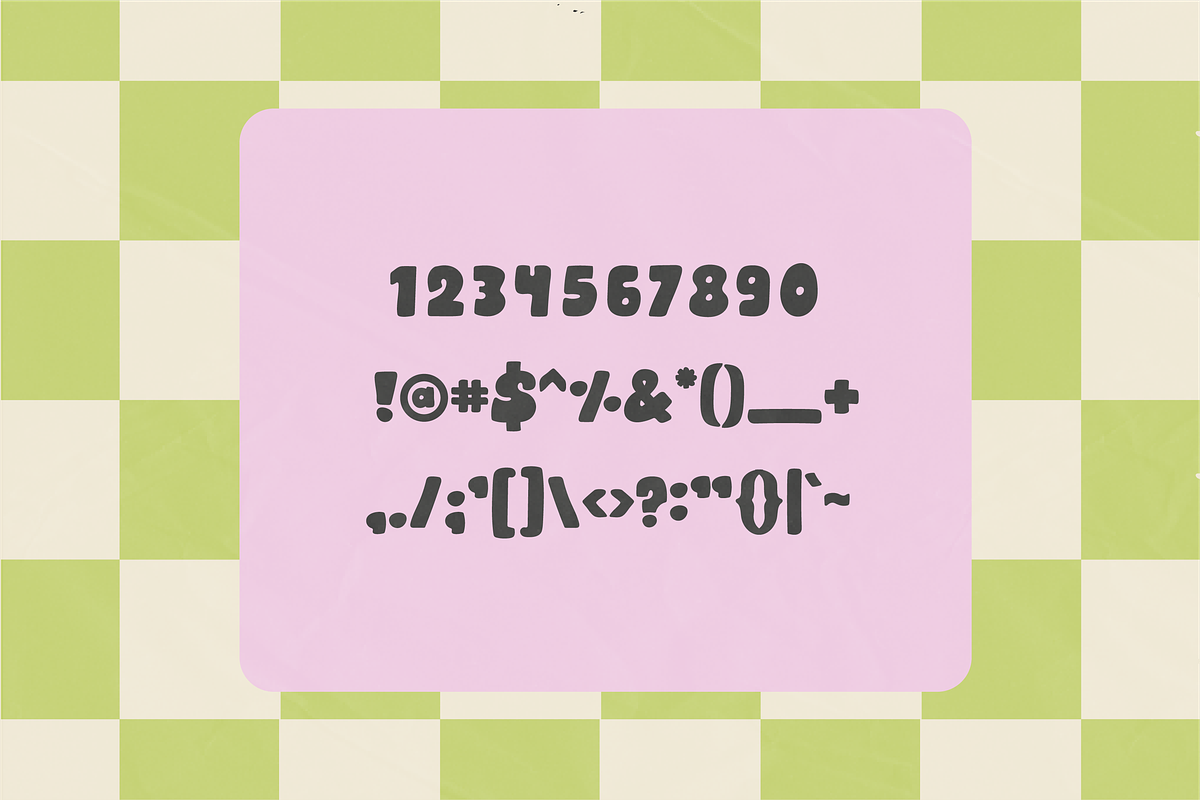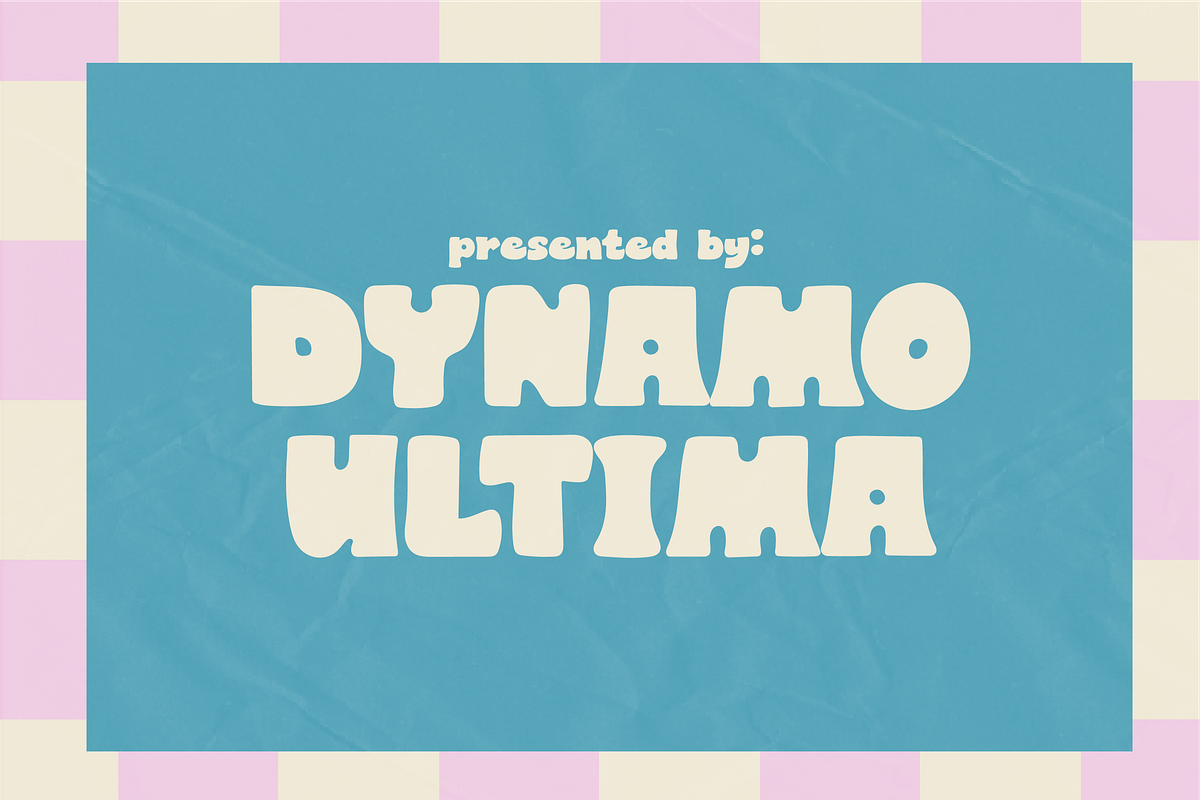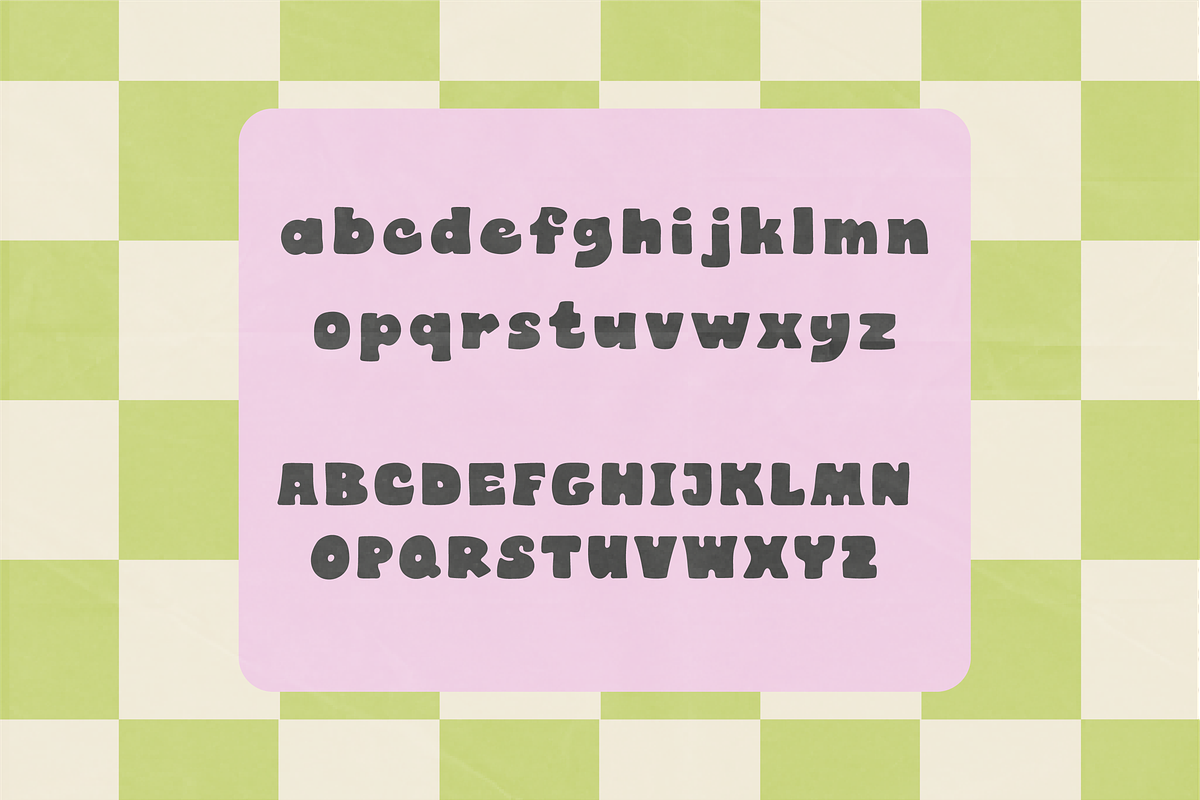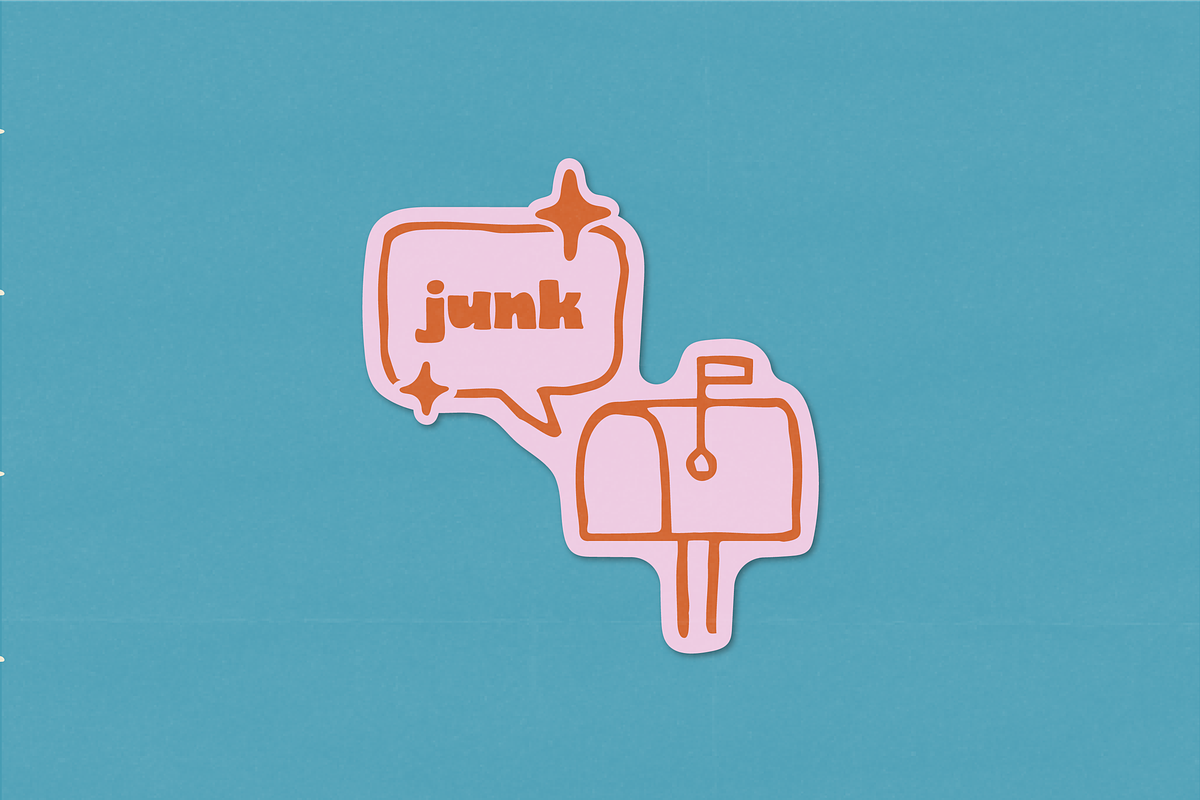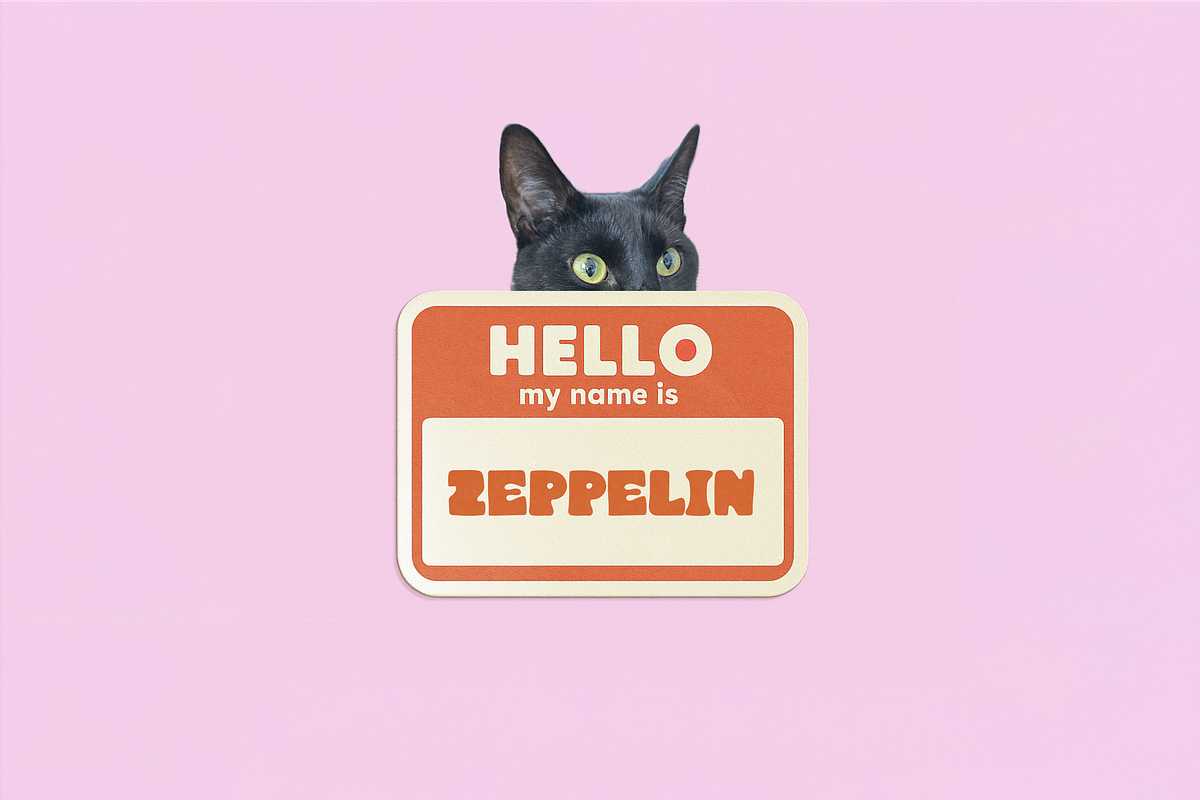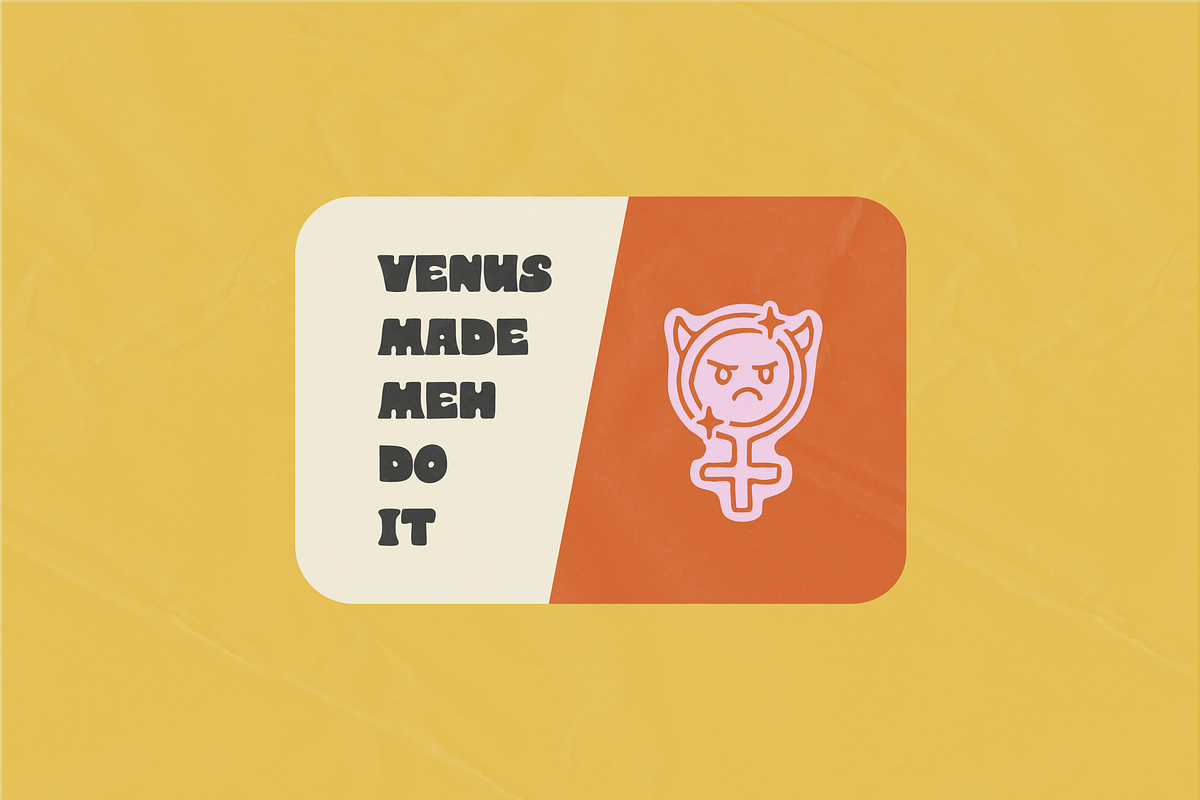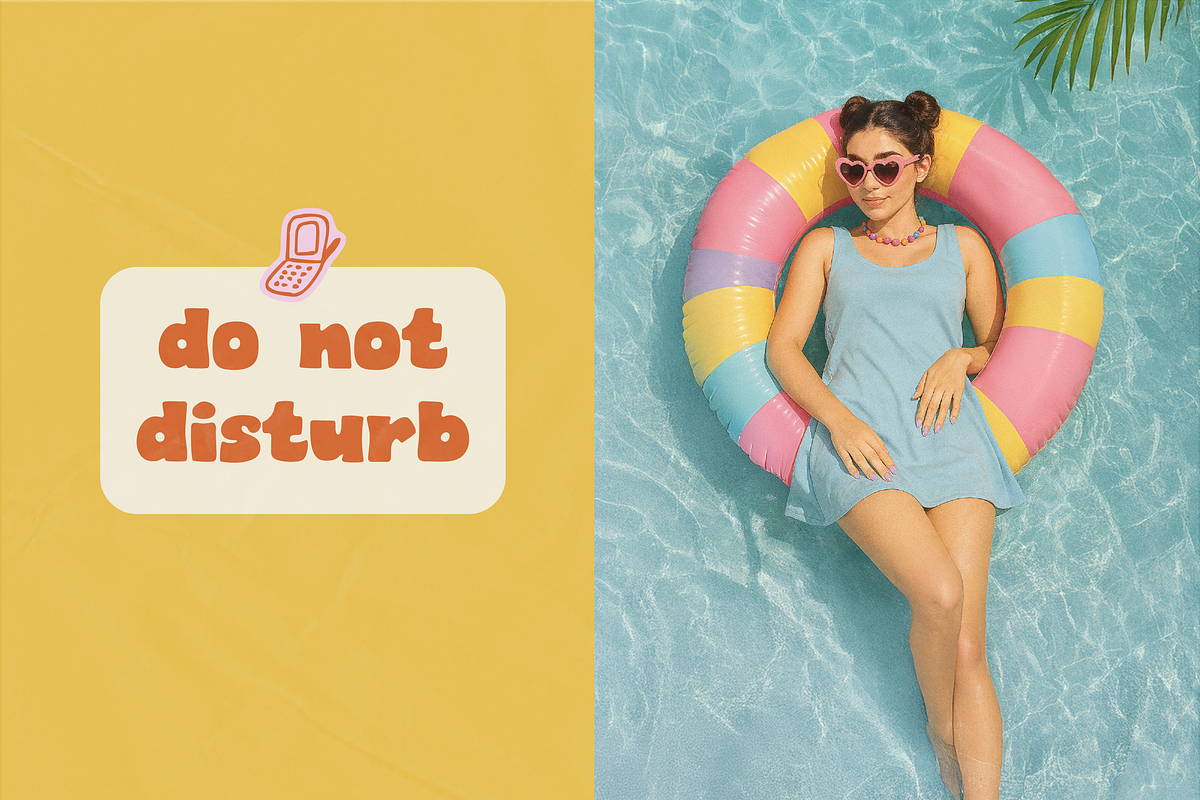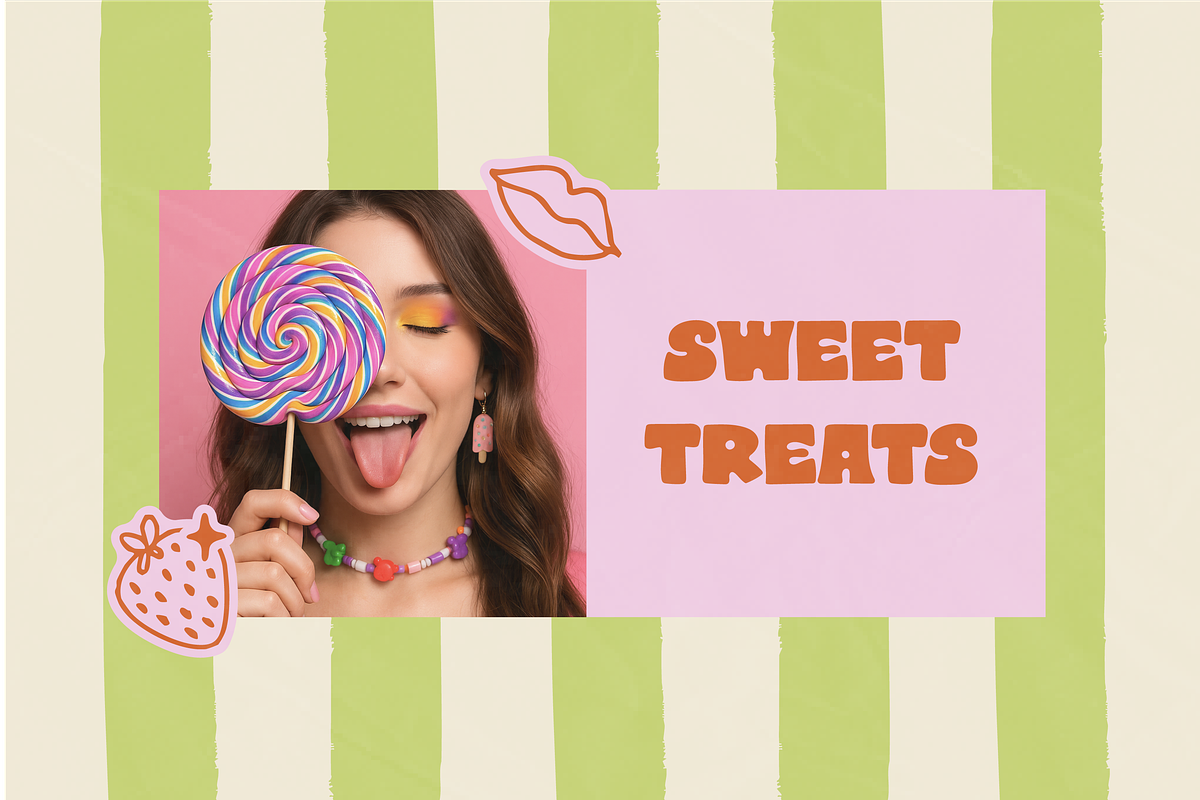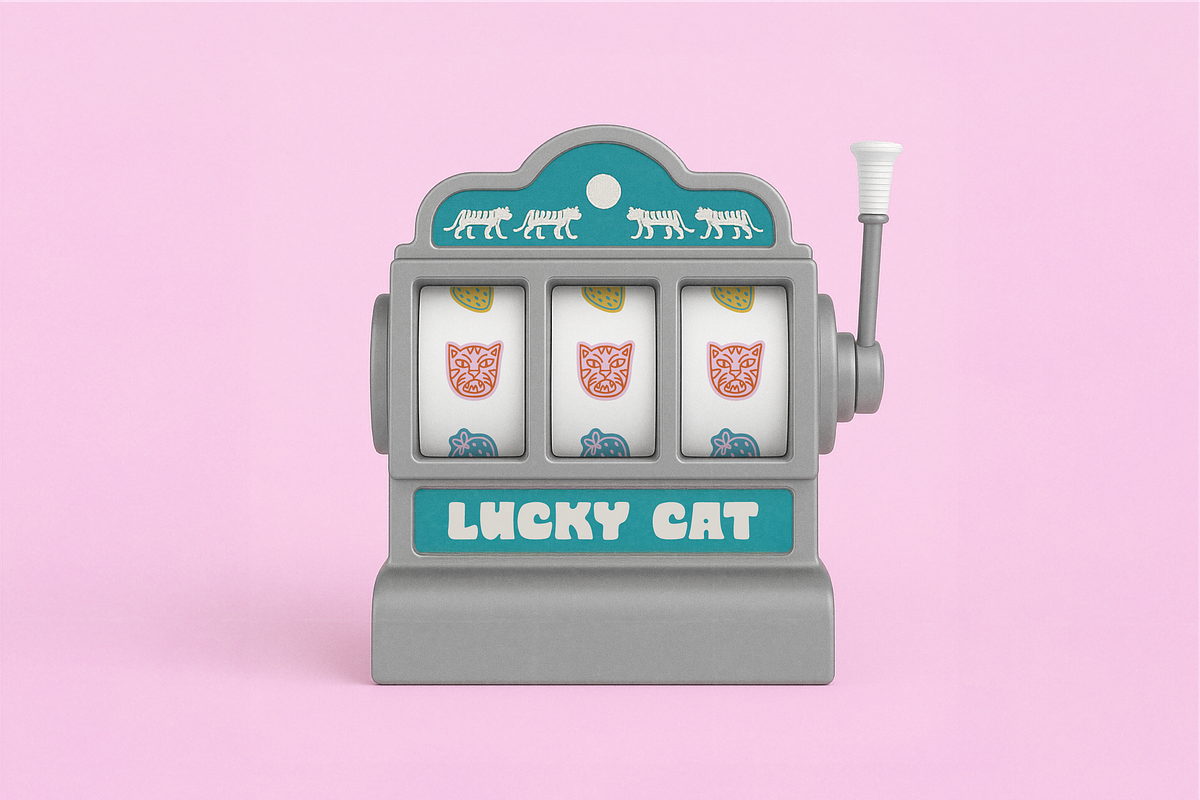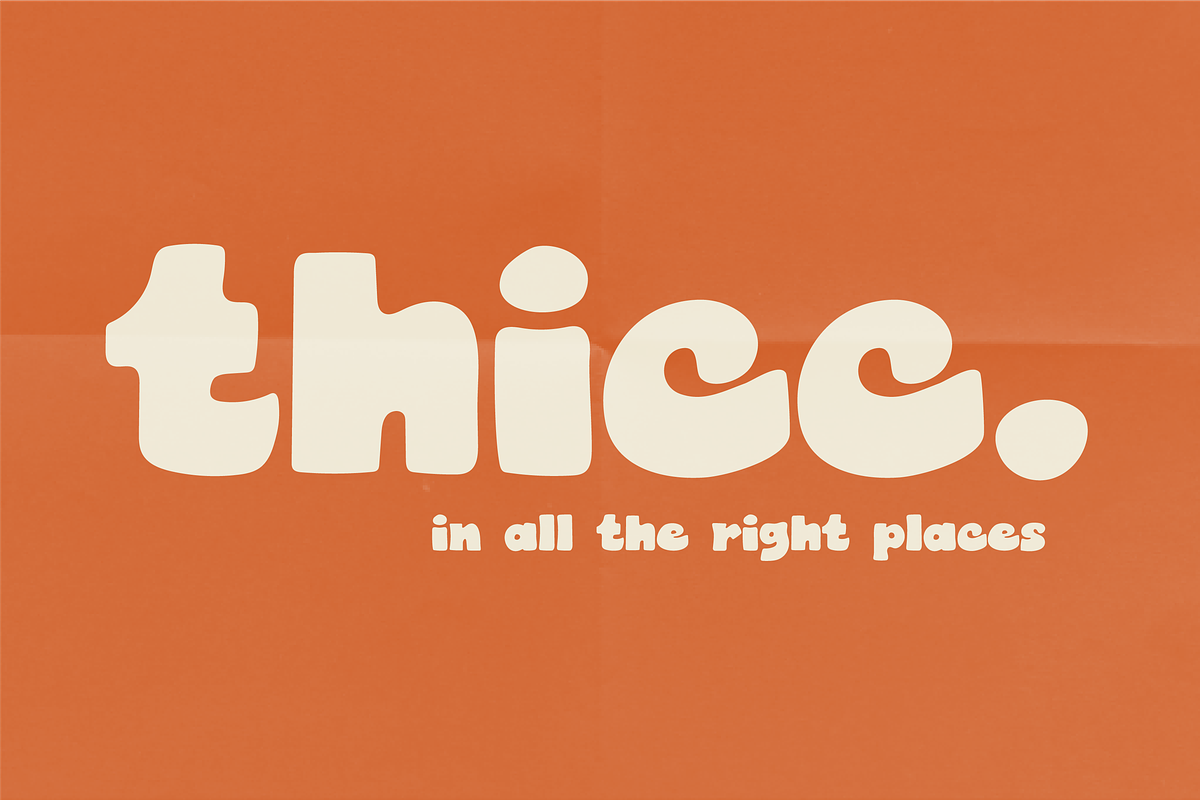
Little Kitty Tiger Rawr - Display
✦ About the Font ✦ A kitschy, bold sans serif display font for for nostalgic weirdos, loud brands, and anyone who colors outside the lines
Sweet, sassy, and a little bit of extra chonk — this typeface is bursting with nostalgic charm, bubble gum attitude, and and main character energy. Inspired by early-2000s mall culture, corner store sticker sheets, and brat energy, this font is made to bring boldness and style to your message.
What’s Inside This is not your average girly font. With chunky curves, playful proportions, and a retro-warped feel, it’s perfect for bold logos, merch, social graphics, packaging, or anything that needs a little more personality and a little less perfection.
This font doesn’t whisper — it rawrs